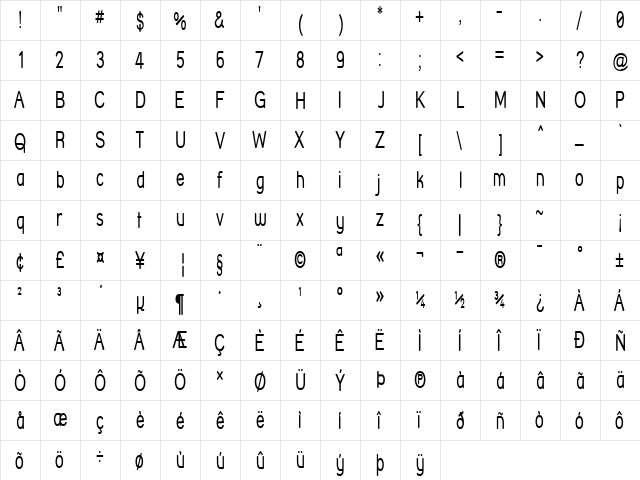
Street Corner Narrow Regular
Design Context for Street Corner Narrow Typeface
Street Corner Narrow is a composed and adaptable typeface that performs quietly and consistently across a wide range of design contexts. Its narrow stance lets it pack a punch even in space-constrained designs.